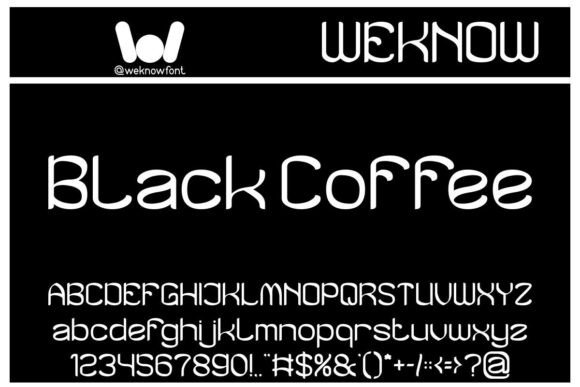
The Ultimate Design Companion: Unveiling Black Coffee Font
I’ll never forget the design struggle I faced while working on a project for a trendy coffee shop. The client wanted a font that was both stylish and playful, but I was stuck in a creative rut. That’s when I stumbled upon Black Coffee Font, and it instantly became my go-to design companion. In this article, I’ll share my experience with Black Coffee, its unique features, and how to make the most of it in your designs.
What Makes Black Coffee Font So Special?
Black Coffee is an eclectic balance of playful whimsy and stylish sophistication. This multi-faceted monoline font combines geometric precision with casual rounded terminals, making it perfect for creating eye-catching logos, defining headlines, and injecting personality into corporate branding.
- ✨ Unique looped display ergonomics for added visual interest
- ✅ Versatile charm that adapts to various themes and design projects
- 🔥 Contemporary cool that adds a touch of modernity to your designs
- ✅ Easy to read and understand, even at smaller font sizes
- ✨ Highly versatile and adaptable to different design themes
- 🔥 Perfect for creating eye-catching logos, headlines, and titles
- ⚠️ May not be the best choice for body text or lengthy paragraphs
- 🤔 Some users may find the font too trendy or attention-seeking
The Story Behind Black Coffee Font
Black Coffee was designed with the goal of creating a font that balances playfulness with sophistication. The designer aimed to craft a font that would be both versatile and attention-grabbing, making it perfect for a variety of design projects.
| Font Name | Black Coffee Font |
| Author | weknow |
Q: What makes Black Coffee Font unique?
A: Black Coffee’s unique looped display ergonomics and seamless blend of geometric precision and casual rounded terminals make it stand out.
Q: Can I use Black Coffee for body text?
A: While Black Coffee is primarily designed for headlines and titles, it can be used for short paragraphs or body text in certain design contexts.
Q: Is Black Coffee suitable for corporate branding?
A: Yes, Black Coffee’s versatile charm and modern aesthetic make it an excellent choice for corporate branding and marketing materials.
Q: Can I use Black Coffee for digital and print designs?
A: Absolutely! Black Coffee is designed to work well in both digital and print environments, making it a great choice for a wide range of design projects.